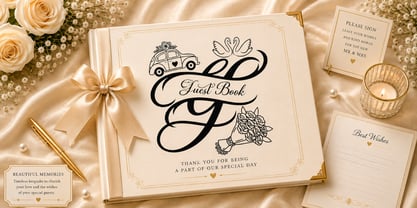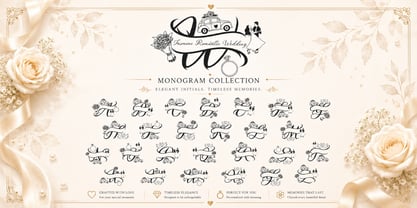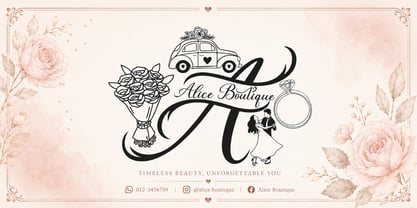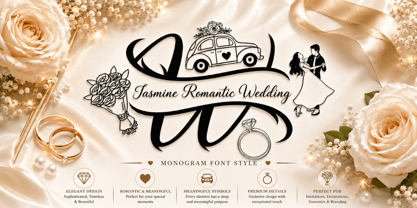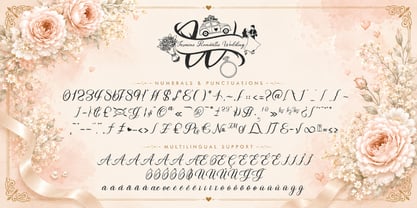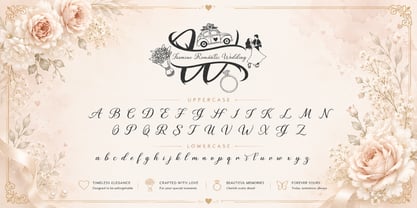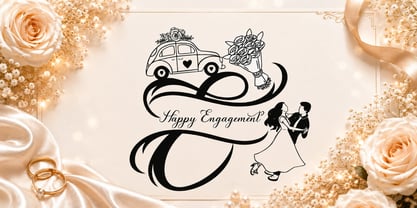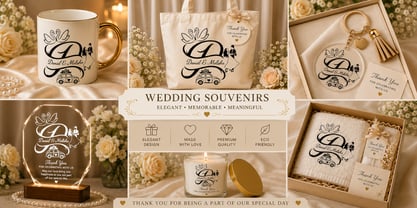
Wedding Romantic Monogram
von Yoga Letter
Die Schriftfamilie Wedding Romantic Monogram wurde von Isroni Yoga Prasetya entworfen und von Yoga Letter veröffentlicht. Wedding Romantic Monogram enthält 2 Stile und Familienpaketoptionen. Mehr über diese Familie
Jasmine Romantic Wedding Monogram is an elegant and luxurious monogram font collection designed to celebrate love and timeless romance. Featuring beautifully intertwined initials adorned with wedding-inspired elements such as bouquets, rings, vintage cars, and romantic couple silhouettes, each monogram creates a personalized and sophisticated touch for wedding invitations, branding, stationery, keepsakes, and special event designs. Perfect for adding charm, elegance, and unforgettable memories to every celebration.
Designer: Isroni Yoga Prasetya
Foundry: Yoga Letter
Wedding Romantic Monogram